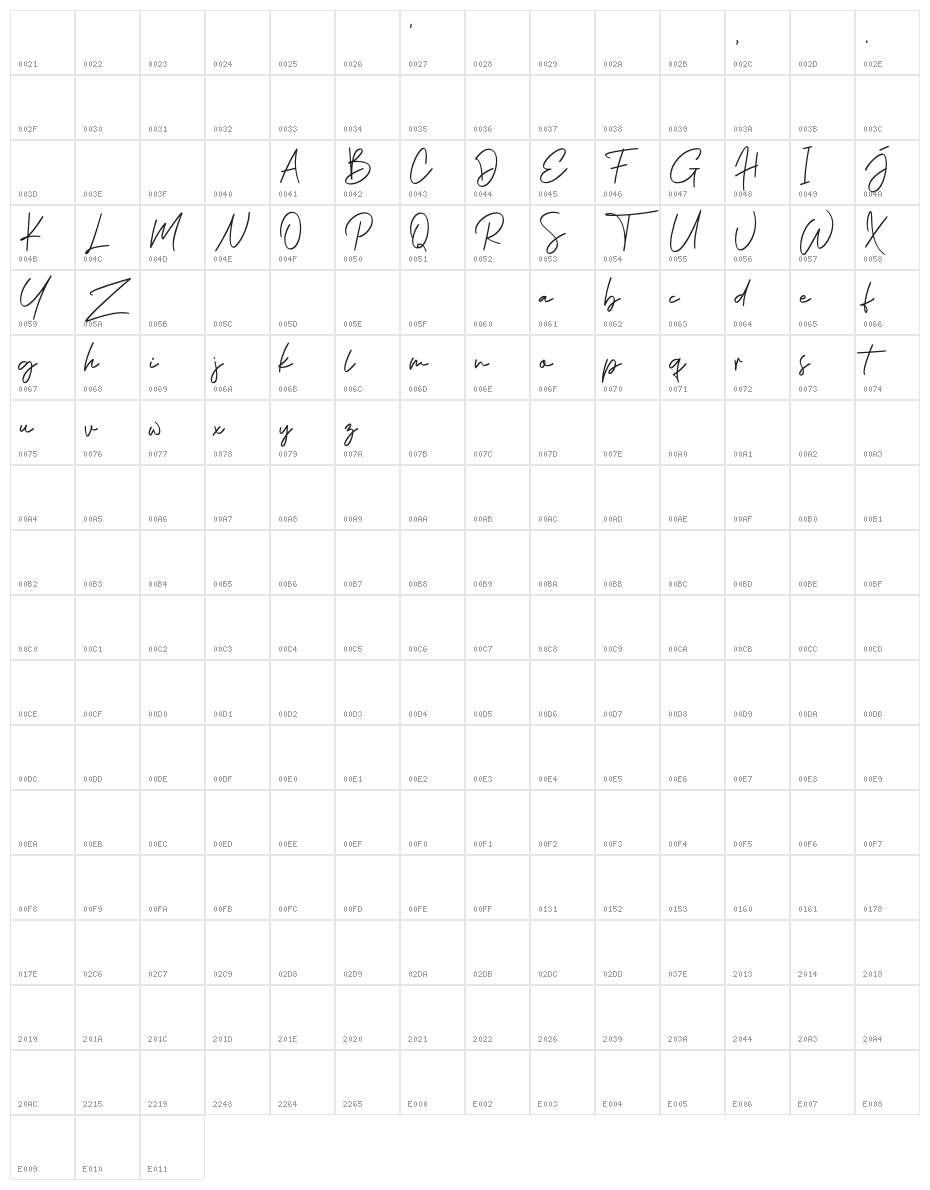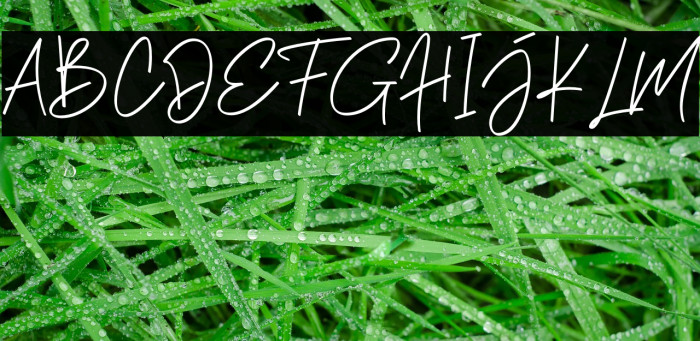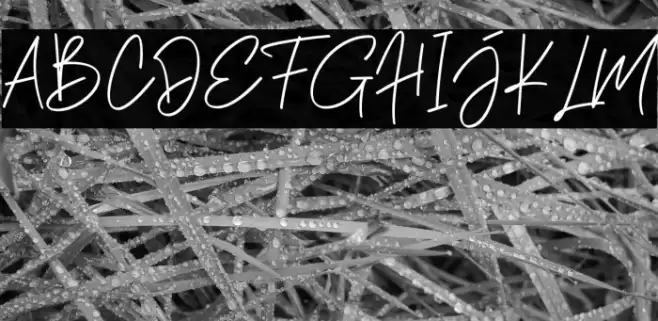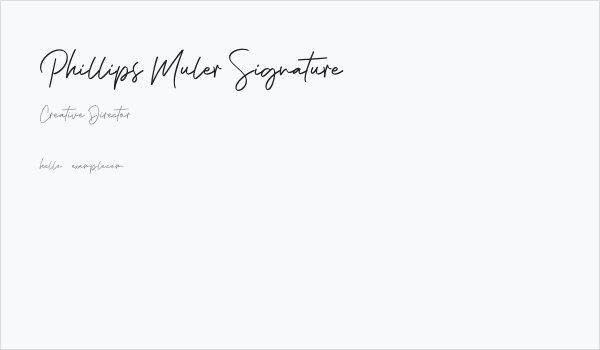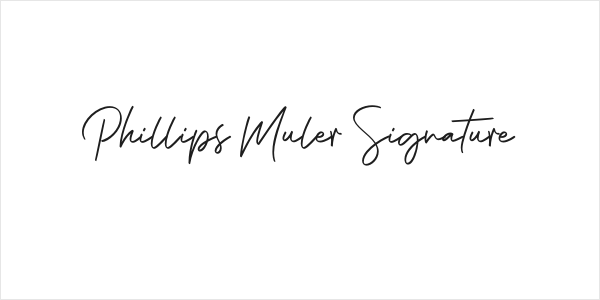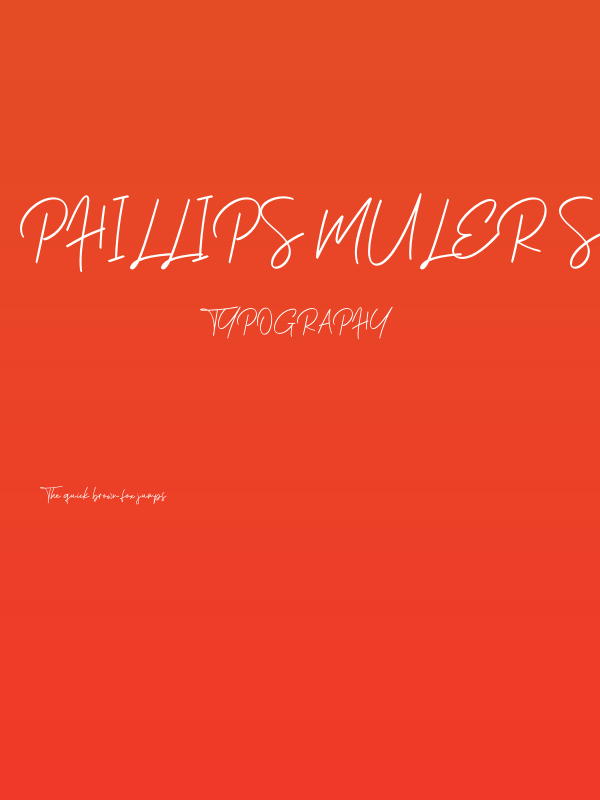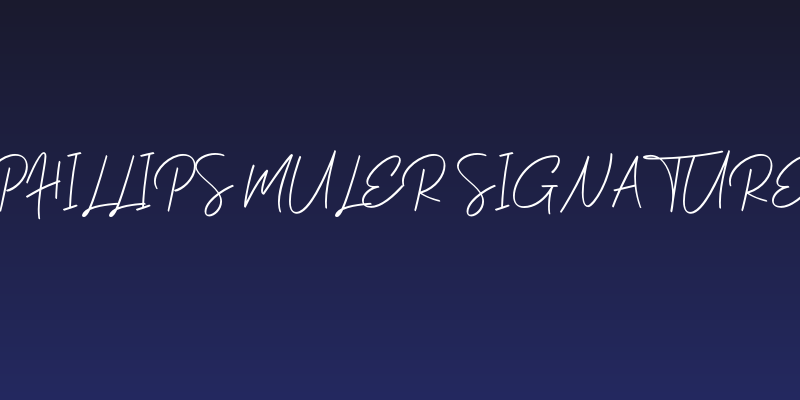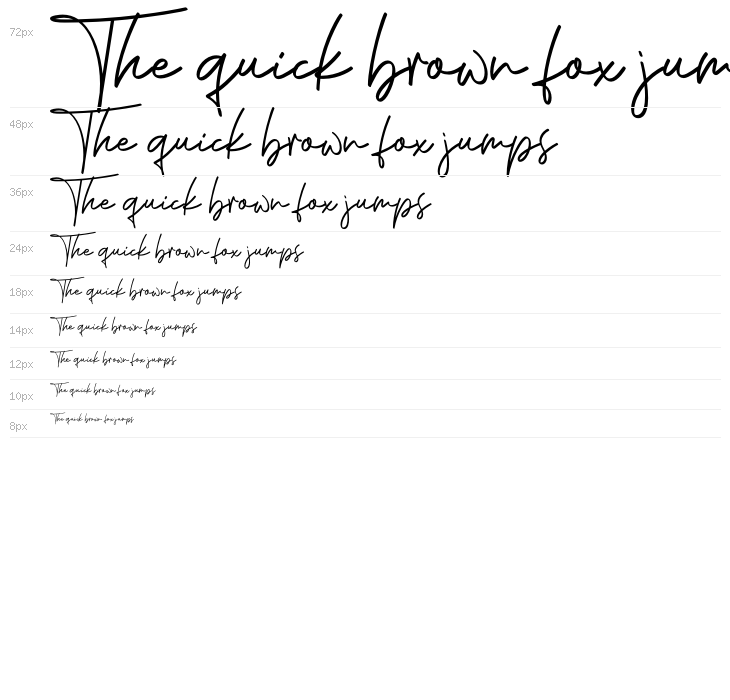
Phillips Muler Signature Font
Phillips Muler Signature Description
This font exudes a handwritten, cursive style that is both elegant and fluid. The uppercase letters are tall and slightly slanted, giving a sense of movement and grace. The lowercase letters are more compact, maintaining the cursive flow with smooth, connected strokes. The overall appearance is sophisticated and personal, reminiscent of a signature or personal note. The font's thin lines and consistent stroke width add to its delicate and refined look, making it suitable for projects that require a touch of elegance and personalization.
| Overall Style | Elegant, Personal |
| Use Case | Logos, Invitations, Personal notes |
| Proposed Projects | Ideal for wedding invitations, personal branding, greeting cards, and elegant logos. |